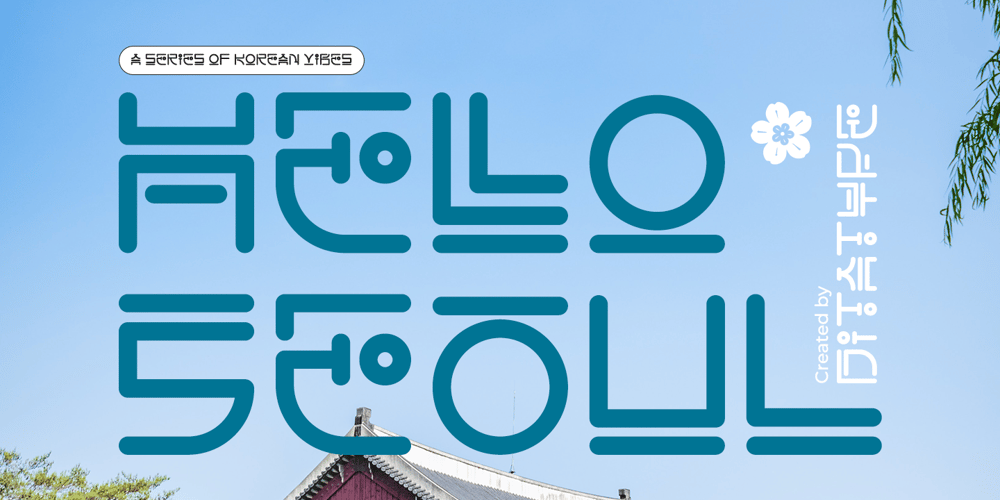
Hello Seoul Font Family was designed by Donis Miftahudin and published by Ditatype. Hello Seoul contains 1 styles and family package options. Hello Seoul is a striking display font that is inspired by the vibrant energy of Seoul. With Hello Seoul, you have a display font that says “hello” with a contemporary flair; it’s a celebration of Korean style and modern design. The characters in Hello Seoul stand tall with a sleek, non-thick weight, offering a refined and contemporary look. The rectangular shapes and sharp corners lend a structured and modern vibe to each letter, reflecting the architectural and cultural landscape of Seoul. Hello Seoul is more than a font; it’s an invitation to explore the dynamic spirit of the city. In addition, enjoy the features here.Features: Alternates Multilingual Supports PUA Encoded Numerals and Punctuations Hello Seoul fits in headlines, logos, posters, flyers, branding materials, greeting cards, print media, editorial layouts, and many more designs. Find out more ways to use this font by taking a look at the font preview.Thanks for purchasing our fonts. Hopefully, you have a great time using our font. Feel free to contact us anytime for further information or when you have trouble with the font. Thanks a lot and happy designing.